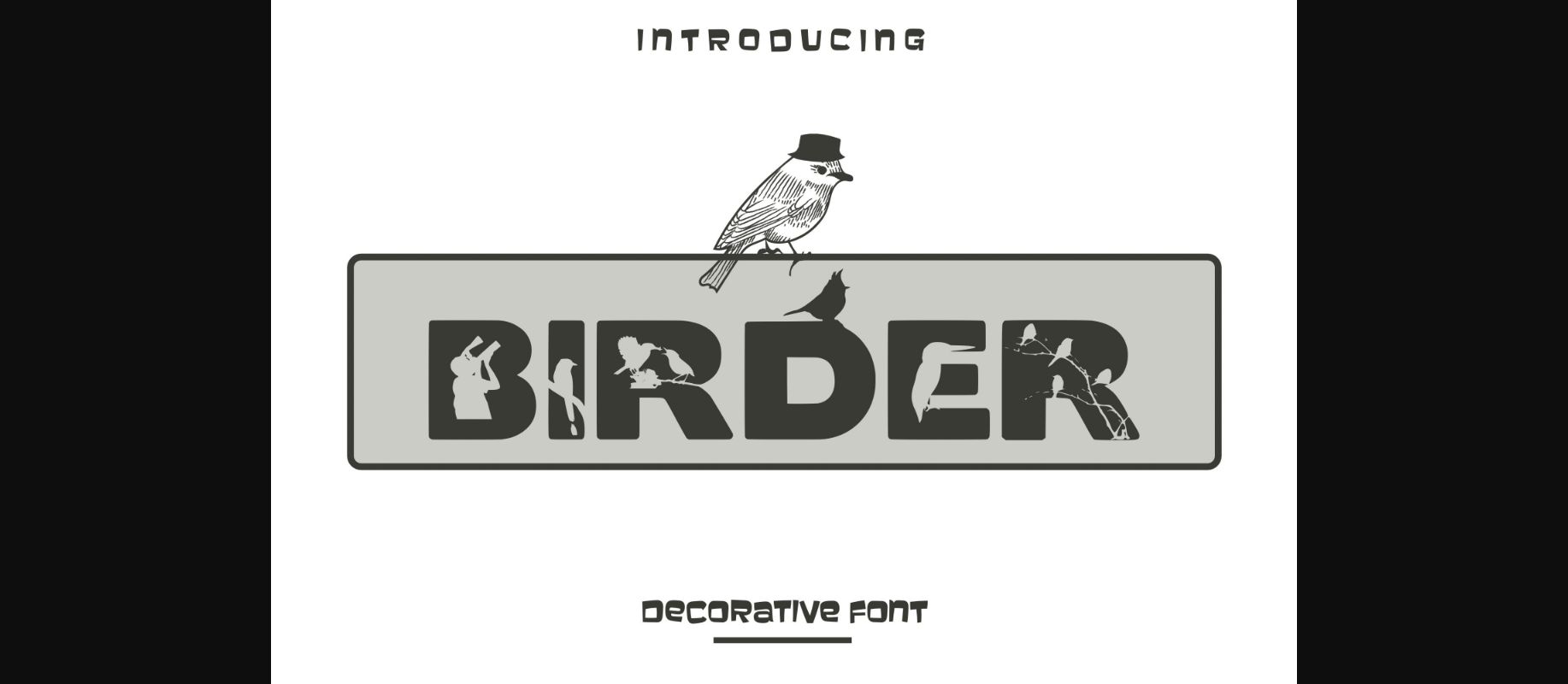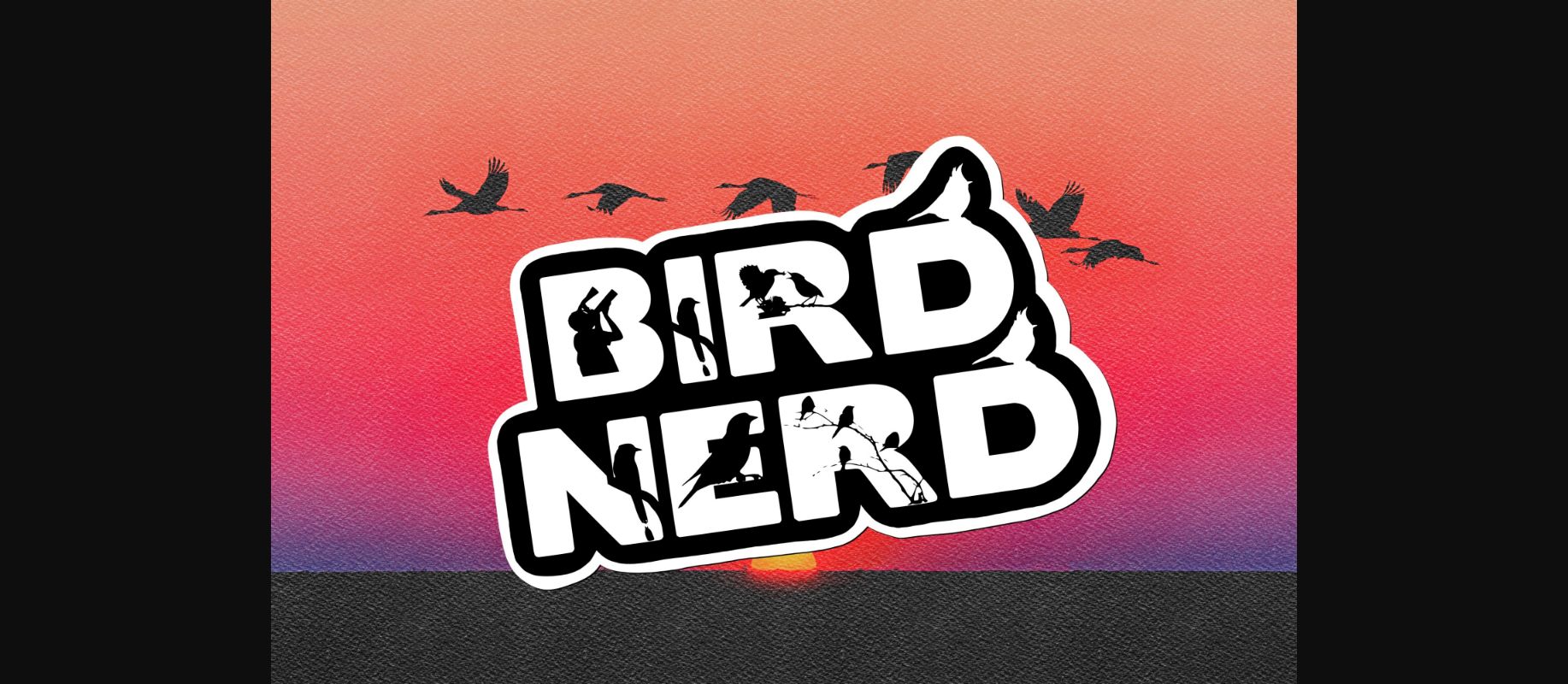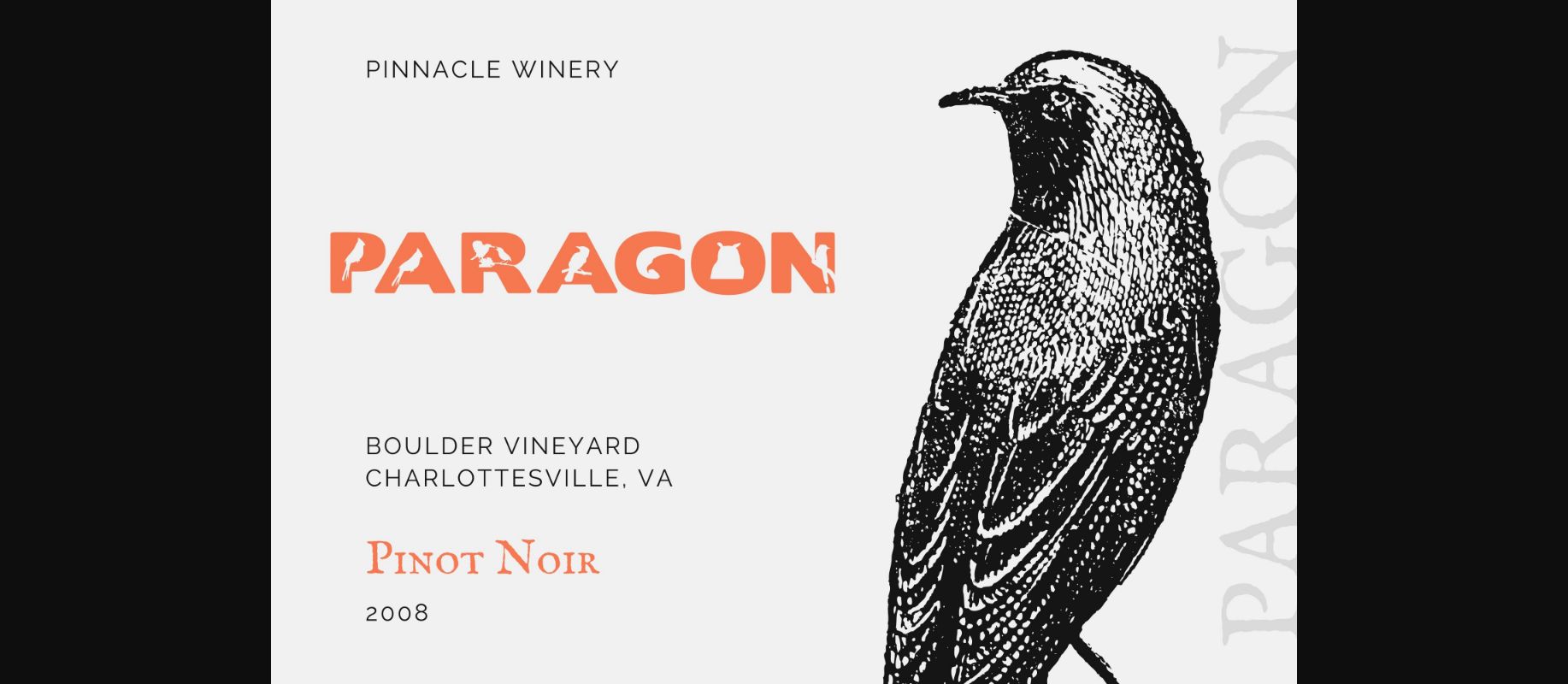
About Birder Font
Birder is a decorative font. It is perfect for bird lovers who what to create some artwork. This font will make your work look outstanding. It is perfect for posters, stickers, t-shirt designs, and more.